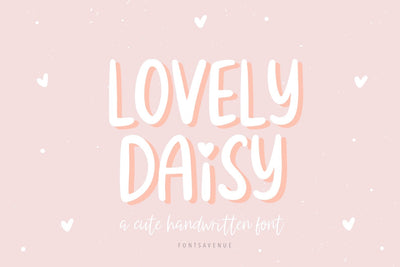
Lovely Daisy | Cute Sans Serif Font
Lovely Daisy is a cute valentines handwritten sans serif font, perfect for invitations cards, prints, stickers, quotes and much more!